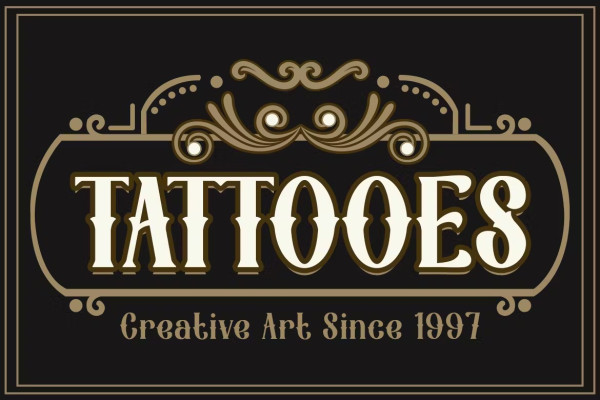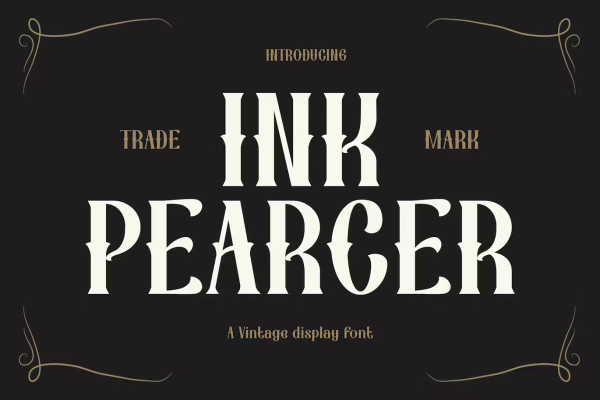
Ink Pearcer Font
Ink Pearcer Font – Elegant Vintage Font’. “This exquisite font captures the essence of bygone eras and brings a touch of nostalgia to your designs. Its charming retro style makes it perfect for creating eye-catching logos, branding materials, and movie-inspired projects.
The timeless appeal of Ink Pearcer lends a touch of authenticity and elegance to any visual project. Whether reviving a classic brand or looking to add a vintage touch to your business, this font will leave a lasting impression. Enjoy the charm of the past and enhance your designs with InkPearcer, the epitome of vintage sophistication.